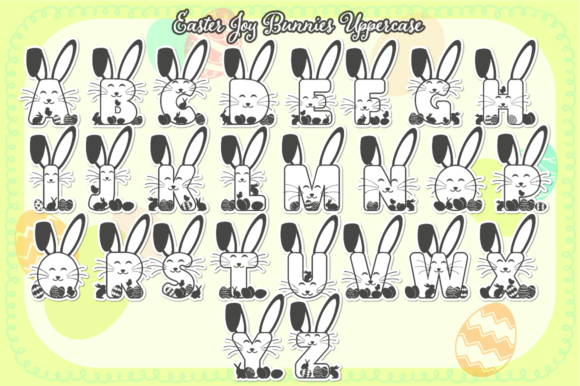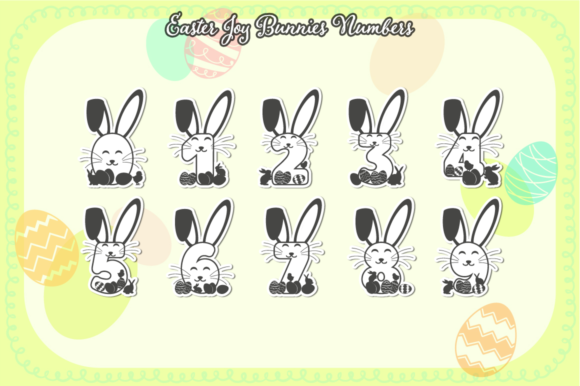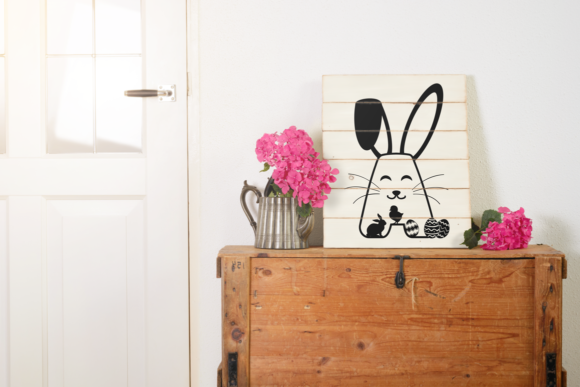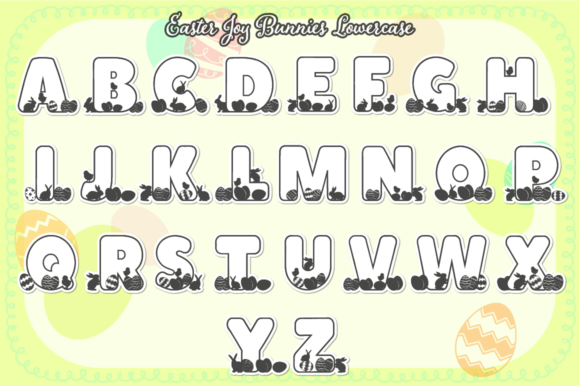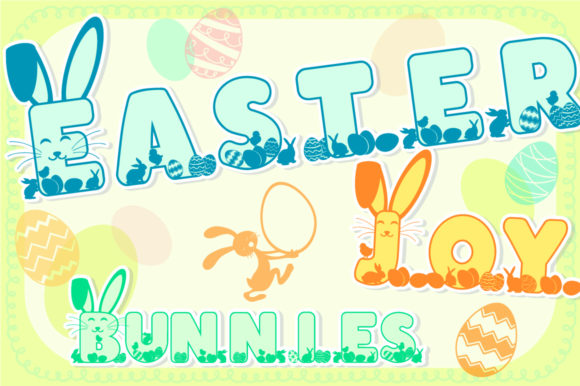
Easter Joy Bunnies Font: The Perfect Addition to Your Easter Crafting Projects
Are you a crafter or designer looking for a unique and fun font to add to your Easter-themed projects? Look no further than the Easter Joy Bunnies Font! This handcrafted font is designed to bring a touch of Easter joy to your crafting projects, and is optimized for use with major brands such as Cricut Design Space, Silhouette Studio, and ScanNCut.
What Makes Easter Joy Bunnies Font So Special?
The Easter Joy Bunnies Font is a handcrafted font created from scratch, using as few points as possible to ensure that you get the best results with minimal difficulty. This means that the font is optimized for cutting, and can be easily used with a variety of cutting machines. The font is perfect for crafters who want to create custom Easter cards, decorations, and other projects.
Benefits for Crafters
Reduced Points for Easy Cutting
One of the standout features of the Easter Joy Bunnies Font is the reduced number of points in each letter. This means that the cutting process takes much less time, making it perfect for crafters who want to create multiple projects quickly. The font is designed to be easy to cut, with clean lines and smooth curves.
Perfect for Easter-Themed Projects
The Easter Joy Bunnies Font is perfect for a variety of Easter-themed projects, including:
- Easter cards and invitations
- Easter decorations, such as garlands and banners
- Easter gift tags and gift wraps
- Easter-themed scrapbooking pages
The font is designed to be fun and playful, making it perfect for adding a touch of Easter joy to your projects.
Tips for Using Easter Joy Bunnies Font
Here are a few tips for using the Easter Joy Bunnies Font in your crafting projects:
- Use the font to create custom Easter cards and invitations
- Add the font to your favorite Easter-themed graphics and images
- Use the font to create custom Easter decorations, such as garlands and banners
- Experiment with different colors and textures to add depth and interest to your projects
The Easter Joy Bunnies Font is a fun and playful font that is perfect for adding a touch of Easter joy to your crafting projects. With its optimized design and reduced number of points, the font is easy to cut and perfect for use with major brands such as Cricut Design Space, Silhouette Studio, and ScanNCut. Whether you’re a crafter or designer, the Easter Joy Bunnies Font is a great addition to your Easter-themed projects.